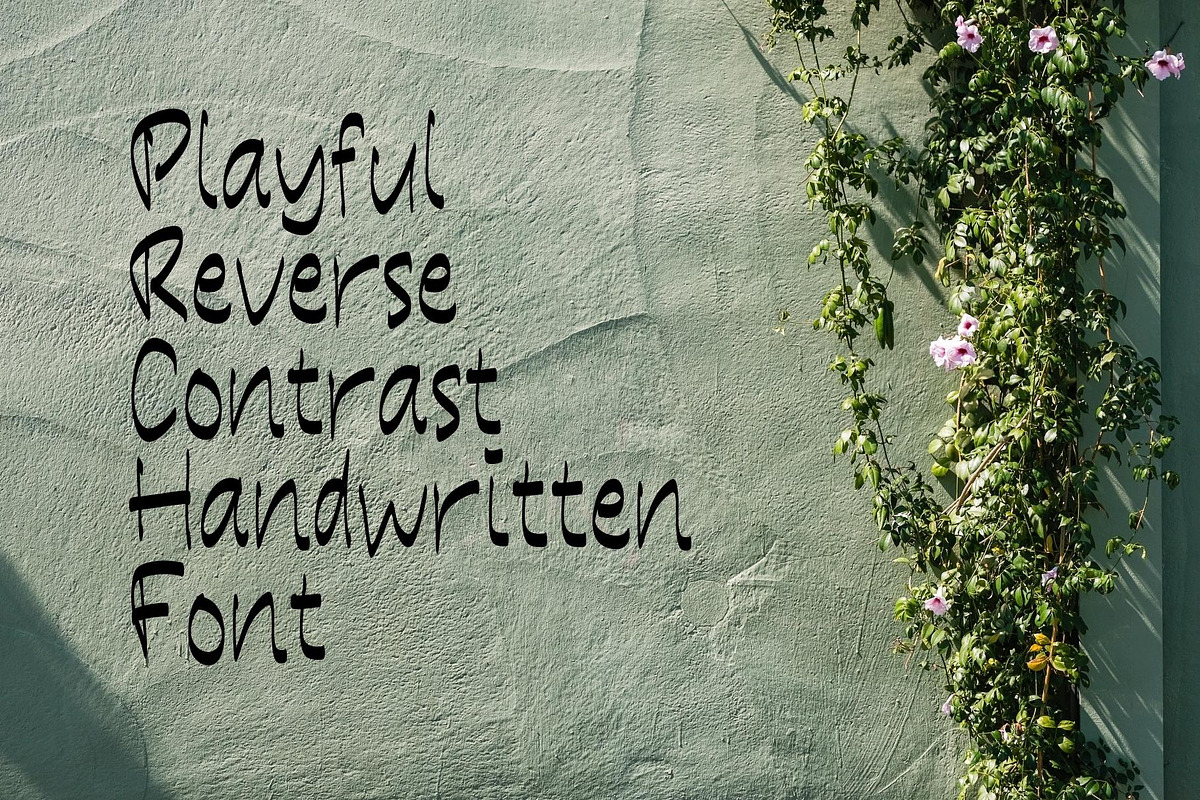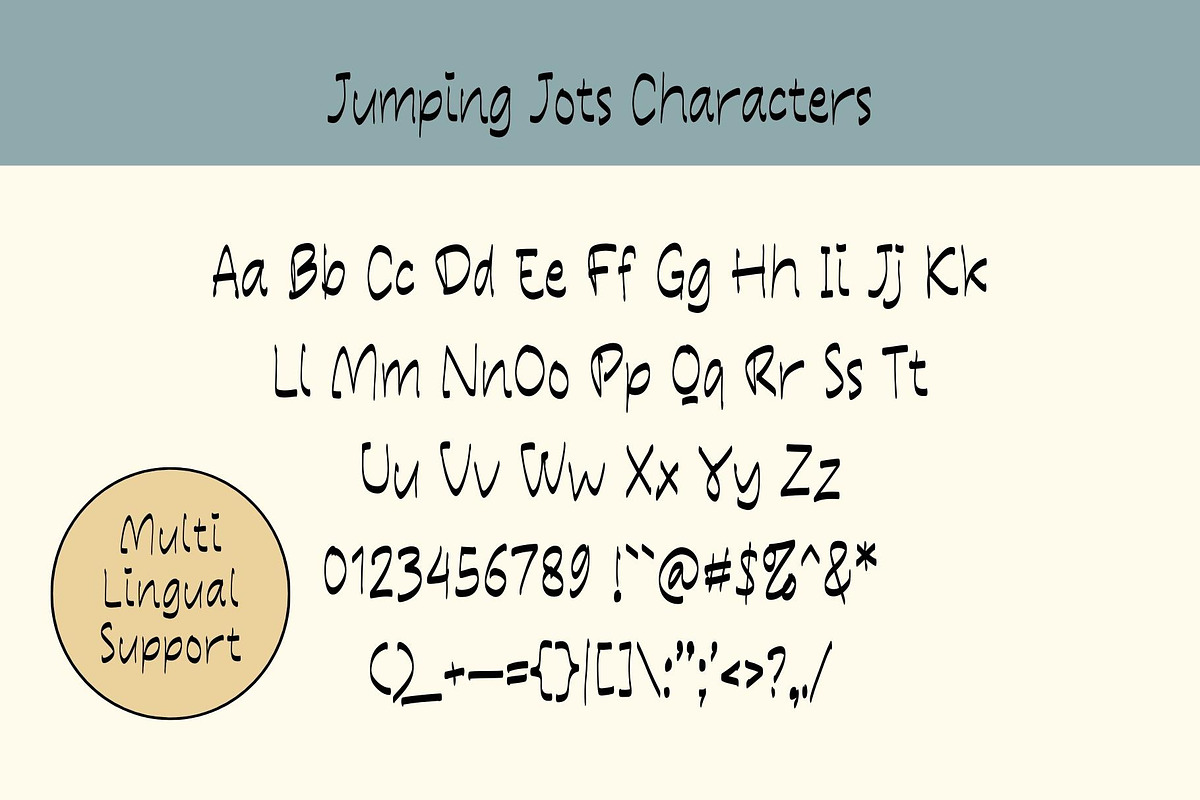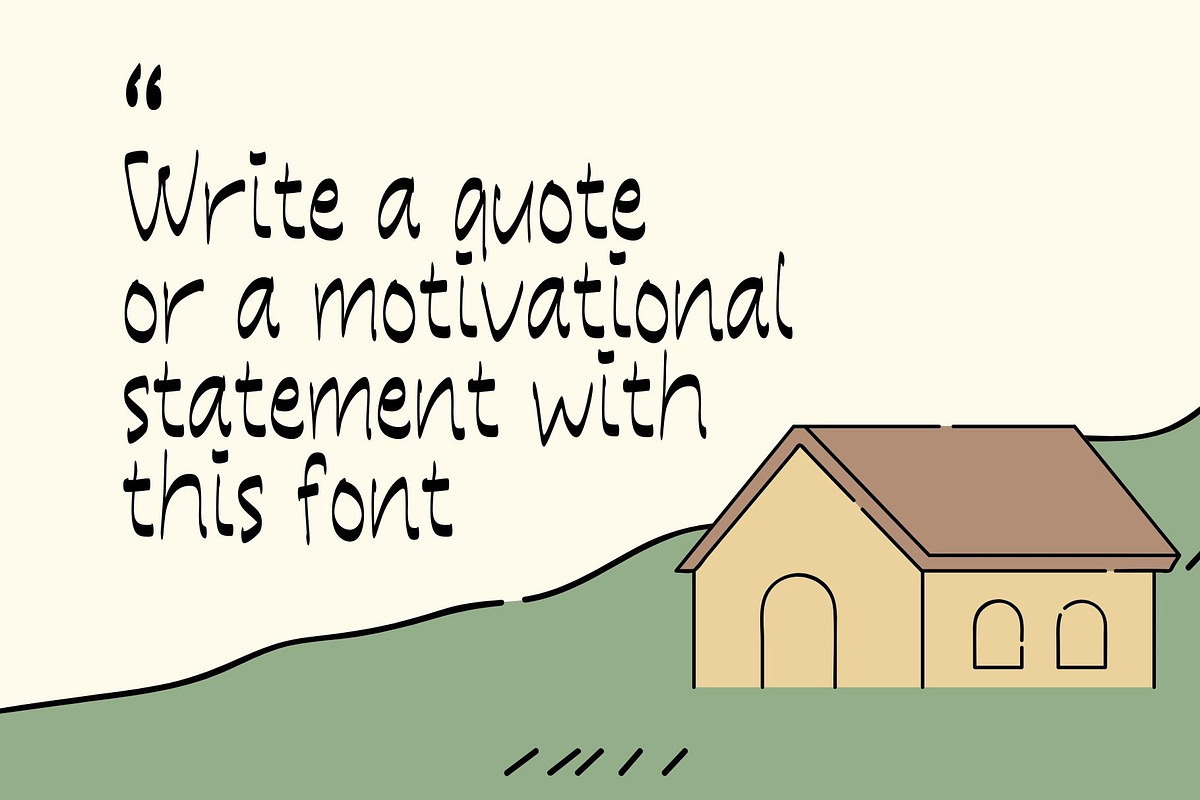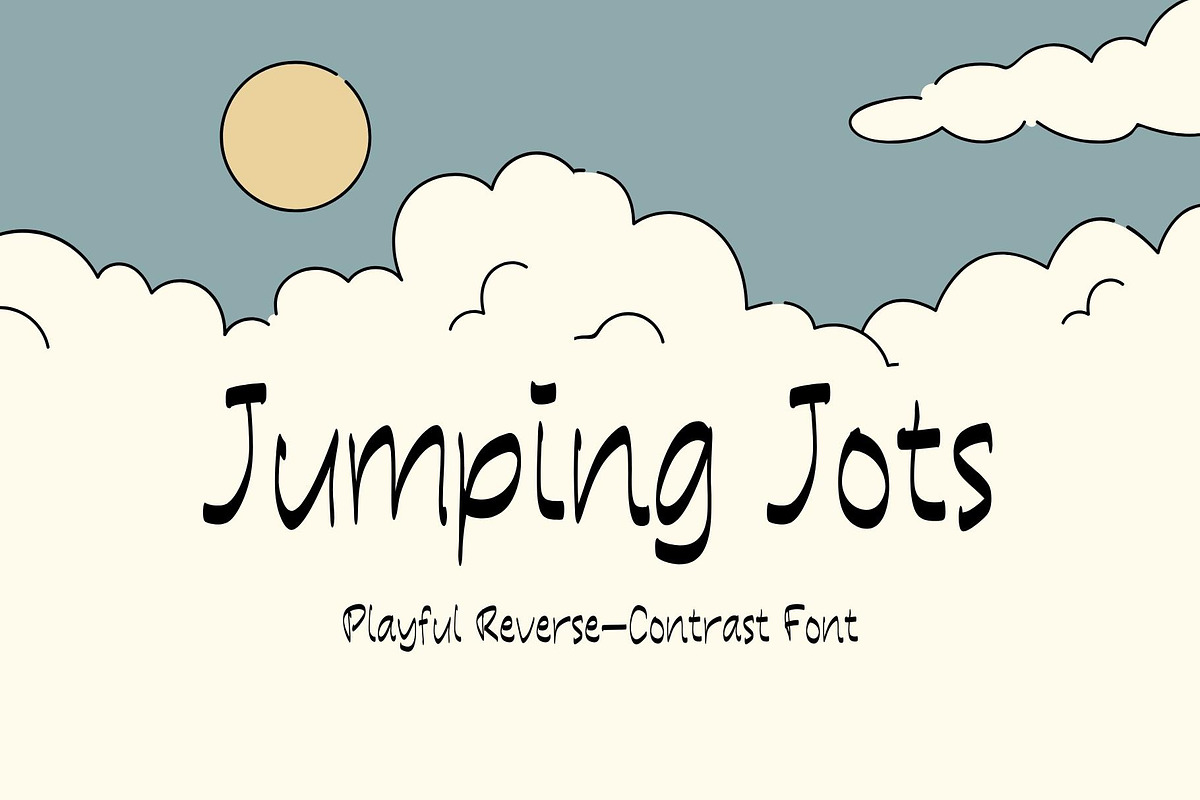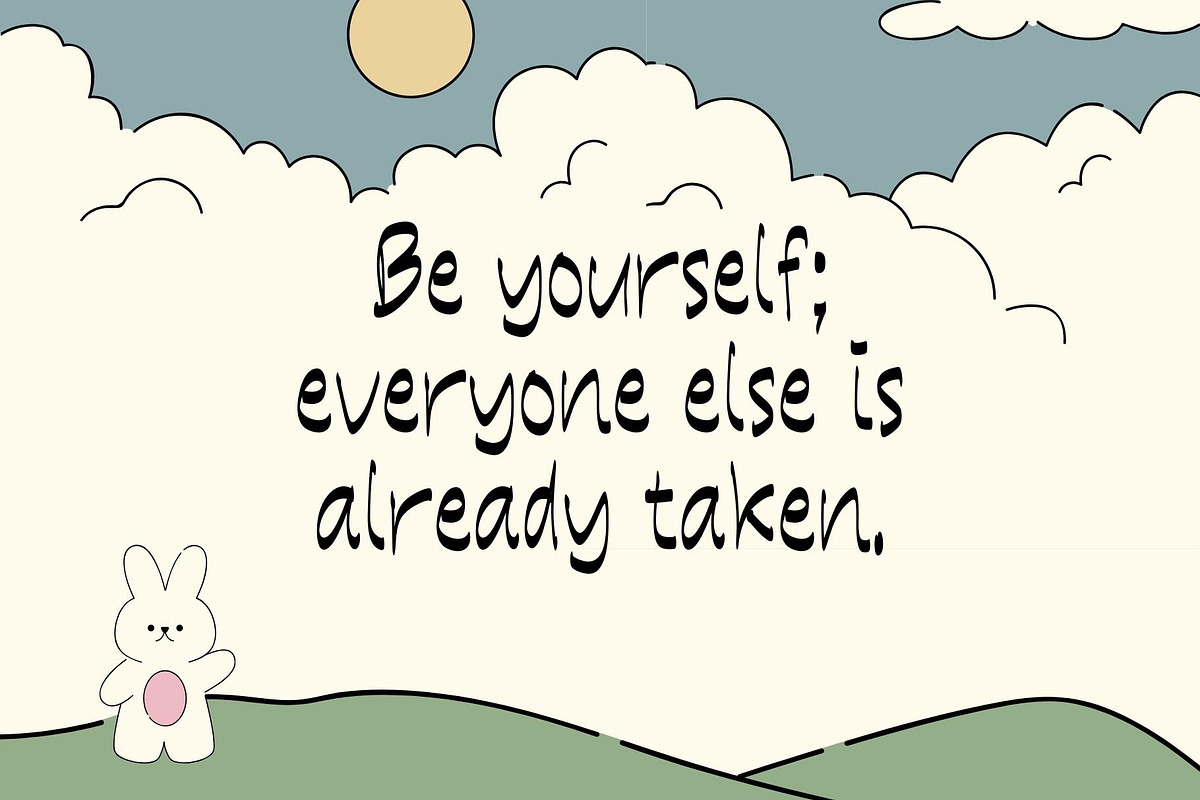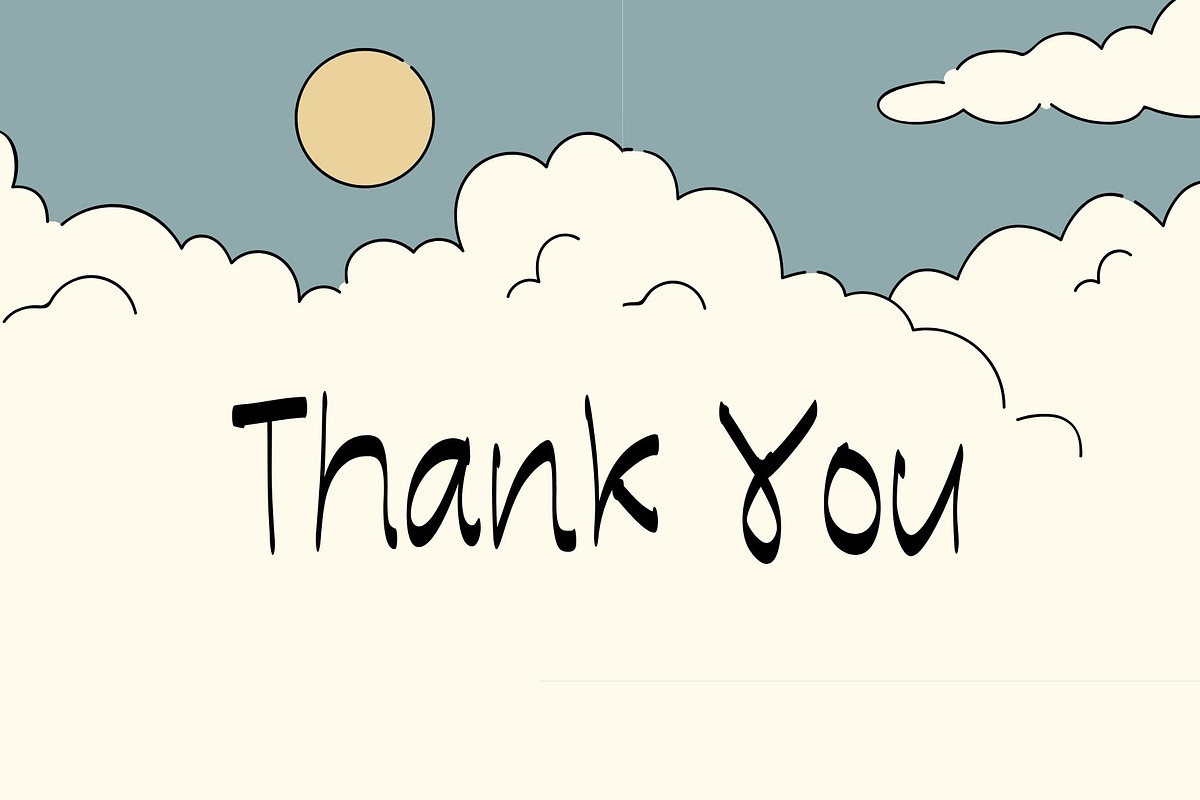
Jumping Jots - Playful Reverse-Contr
Jumping Jots - Playful Reverse-Contrast Font - is a Handwritten playful font with reverse contrast letterforms that adds a unique touch and personality to any design.